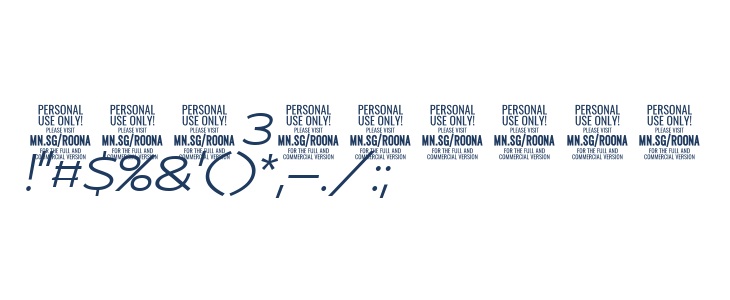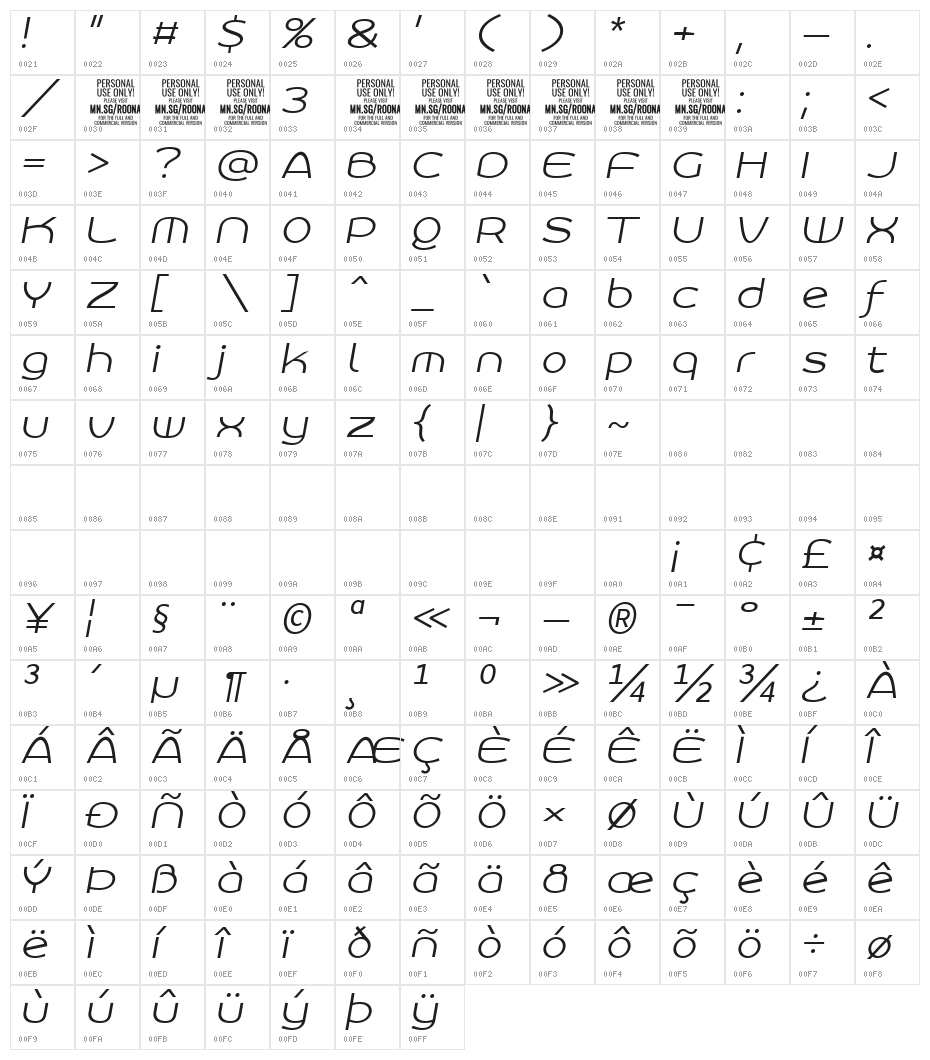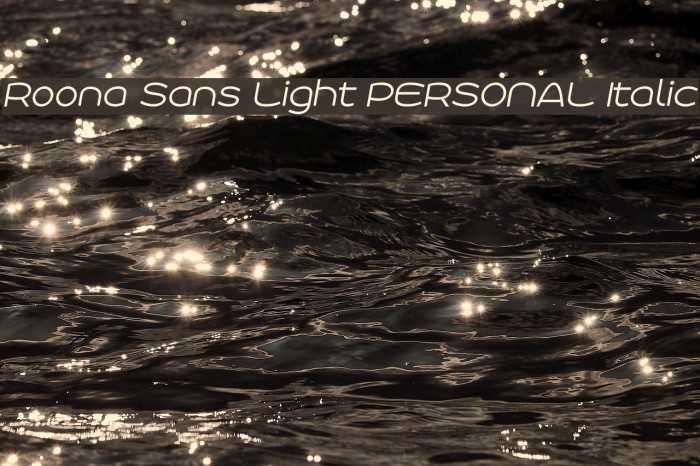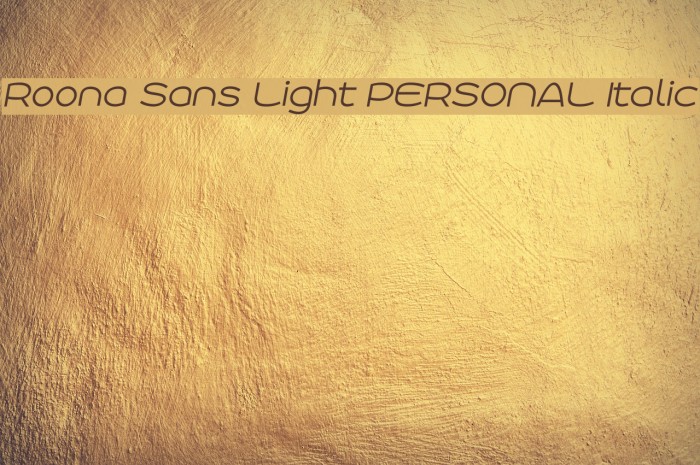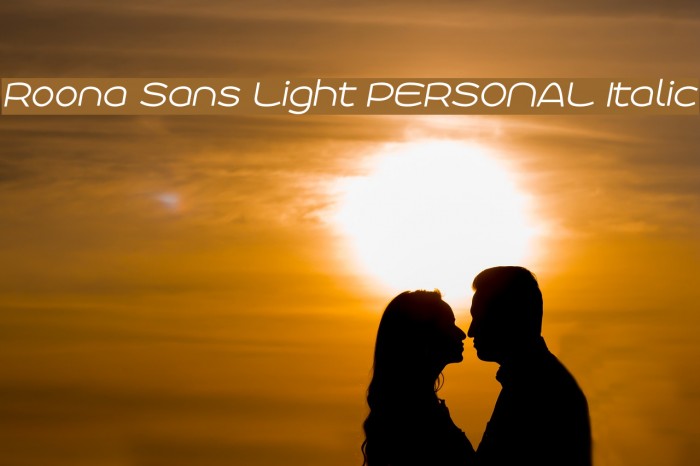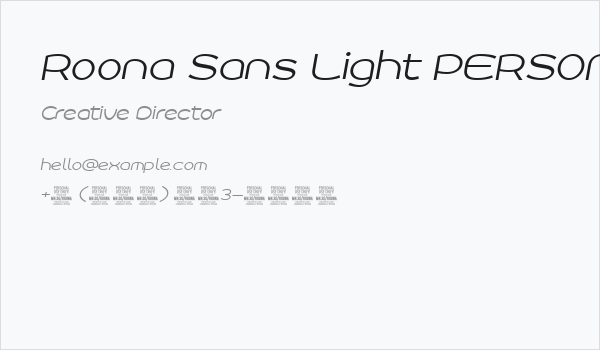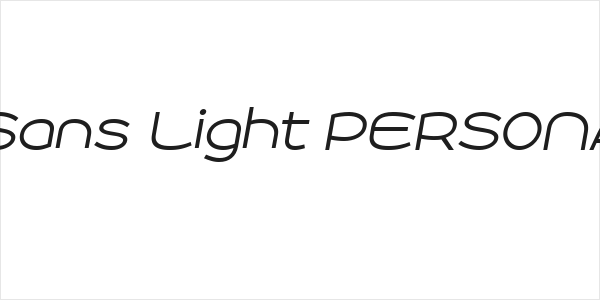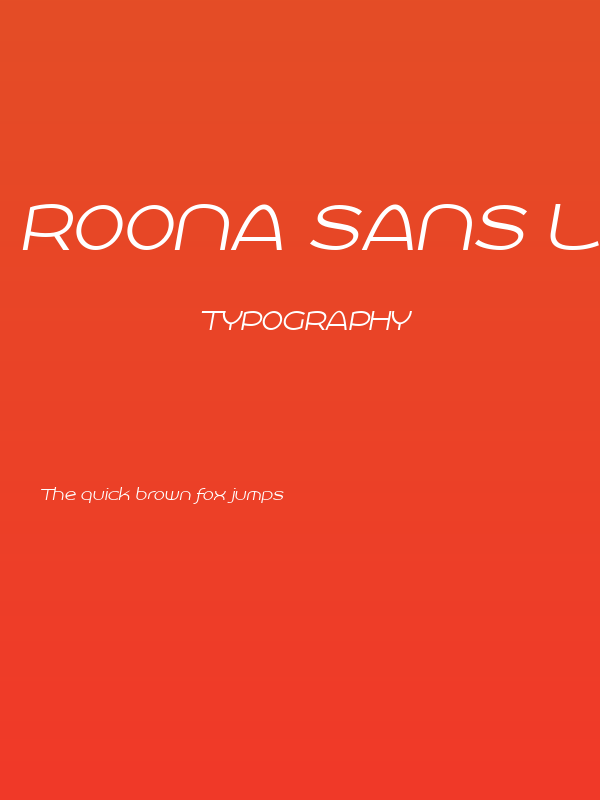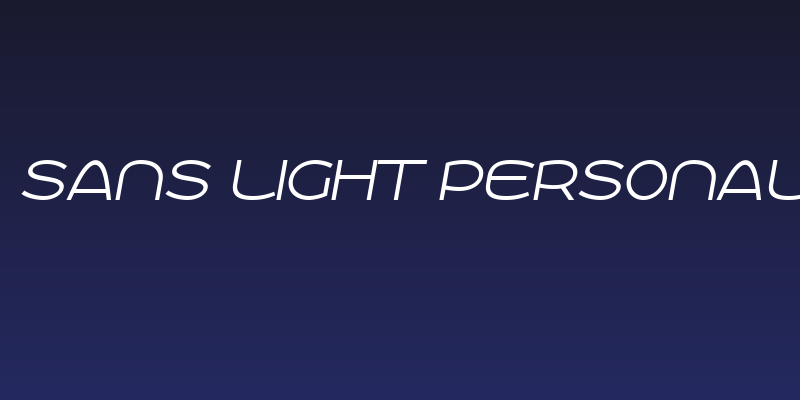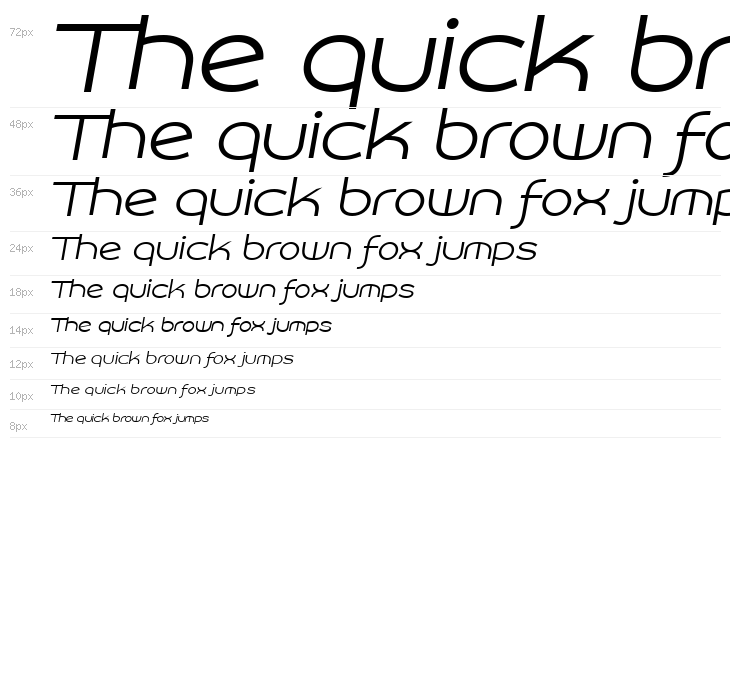
Roona Sans Light PERSONAL Italic Font
Roona Sans Light PERSONAL Italic Description
This font features a sleek and modern design with a light weight and italic style. The characters are slightly elongated, giving them a dynamic and forward-moving appearance. The sans-serif nature of the font ensures a clean and uncluttered look, making it suitable for contemporary design projects. The spacing between characters is normal, allowing for easy readability while maintaining a stylish aesthetic. The font includes a full set of uppercase and lowercase letters, numbers, and a variety of special characters, making it versatile for various applications.
| Proposed Projects | Ideal for modern branding, digital interfaces, advertising, and editorial design. |